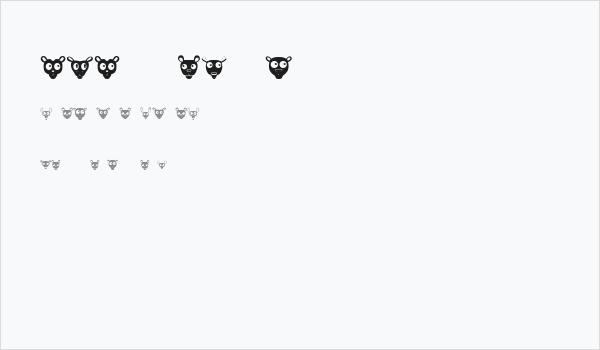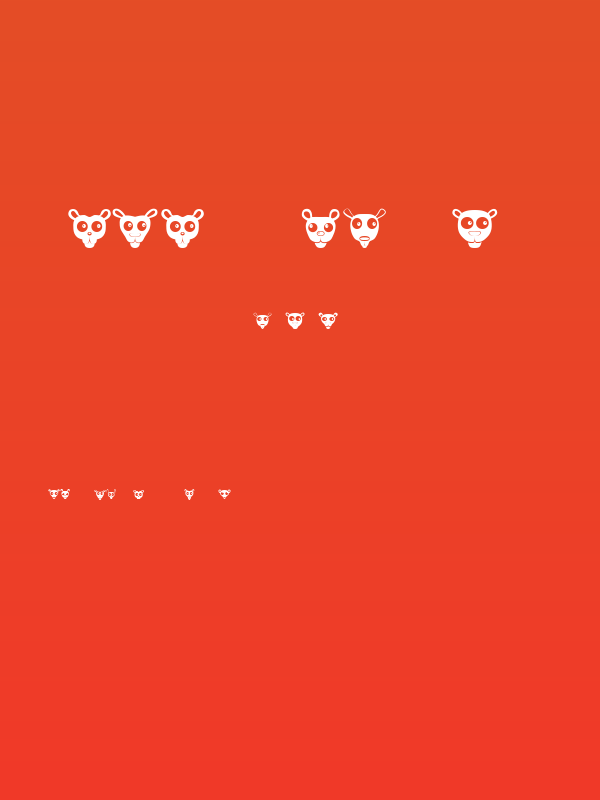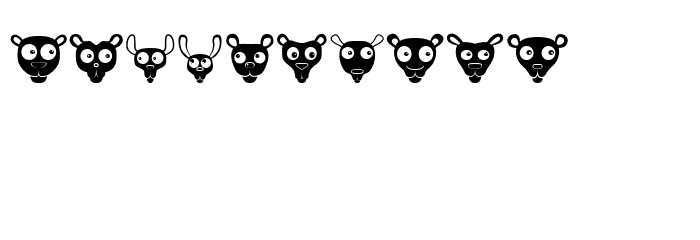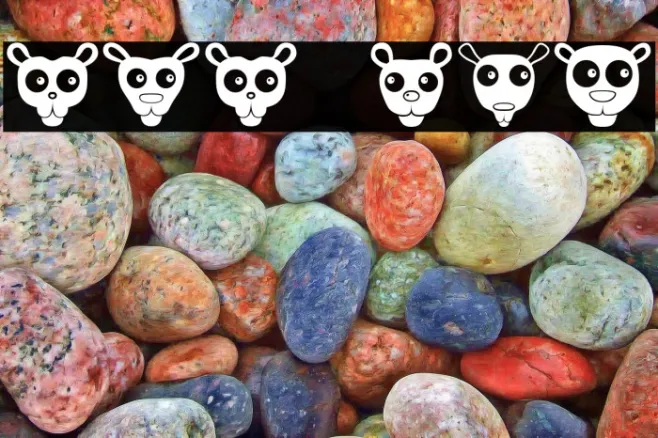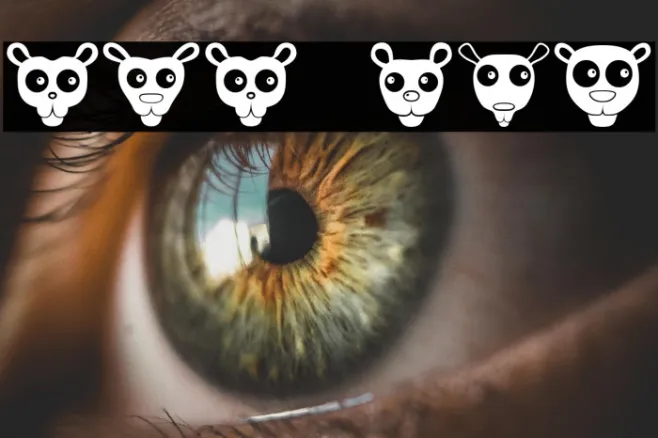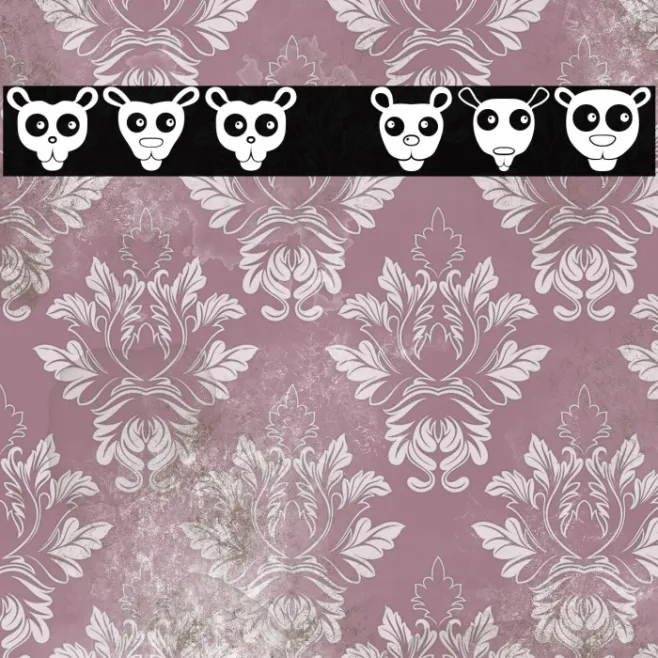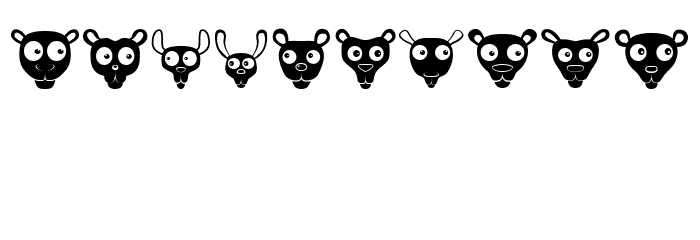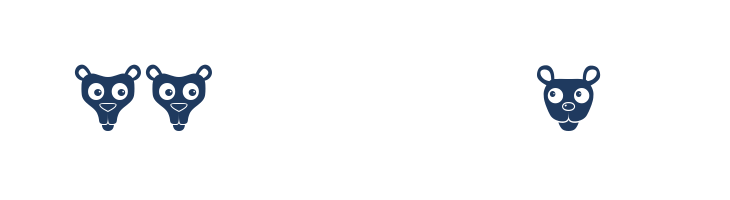
Biby Regular Font
Biby Regular Description
This design features a series of playful, cartoonish animal faces, each with distinct expressions and characteristics. The characters are bold and rounded, with exaggerated features such as large eyes and ears, giving them a whimsical and friendly appearance. The style is consistent across all characters, maintaining a uniform look while allowing for individual personality. The use of solid black shapes with minimal detailing ensures clarity and impact, making it suitable for decorative purposes.
| Use Case | Decorative elements, Branding, Illustrations |
| Proposed Projects | Ideal for children's book illustrations, playful branding, educational materials, and decorative elements in design projects. |